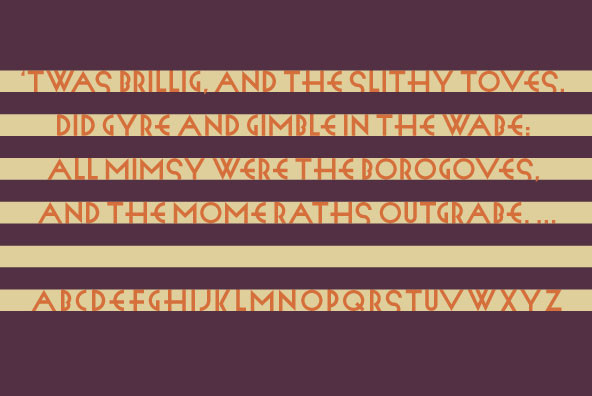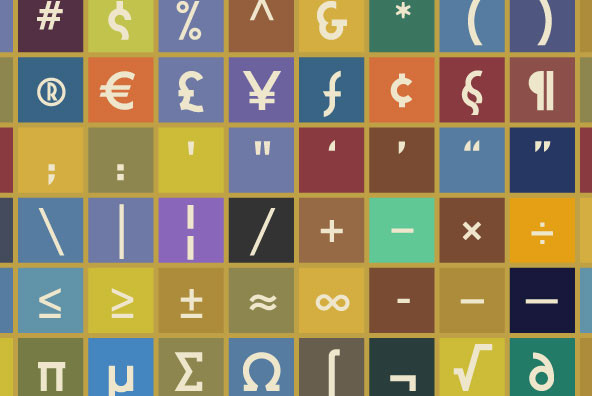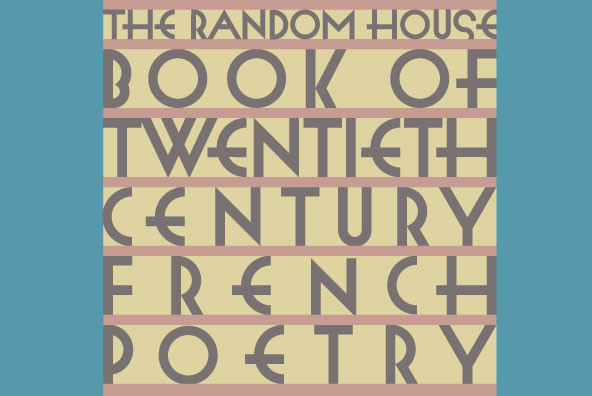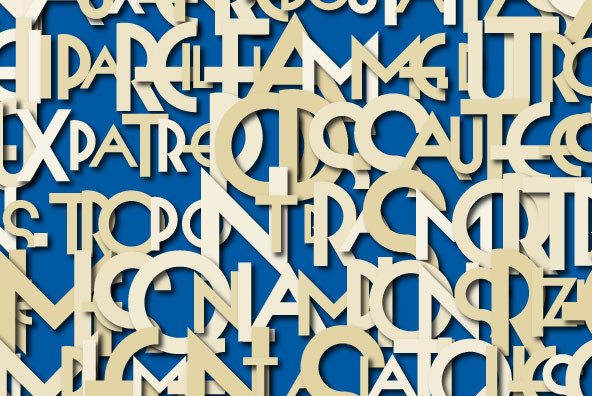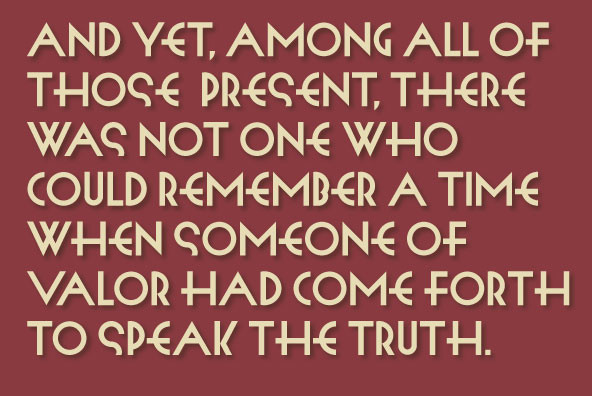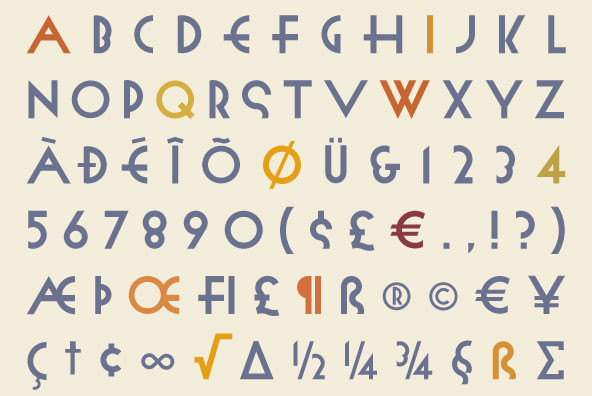
Twentieth Century was designed for the cover of a collection of 20th Century French Poetry and bears the precise and spare geometry of the machine age.